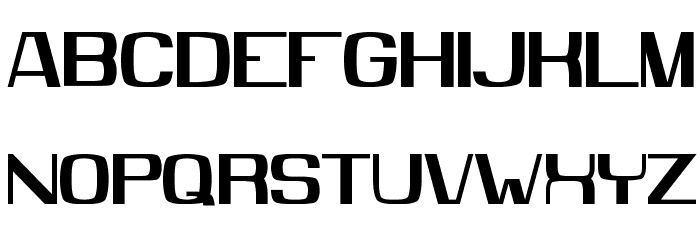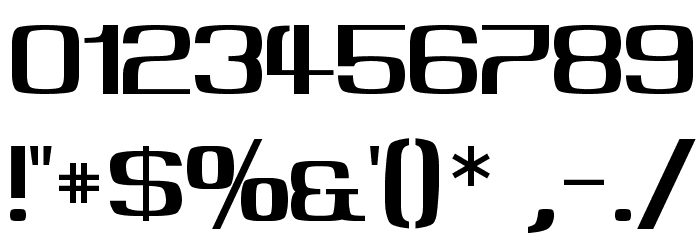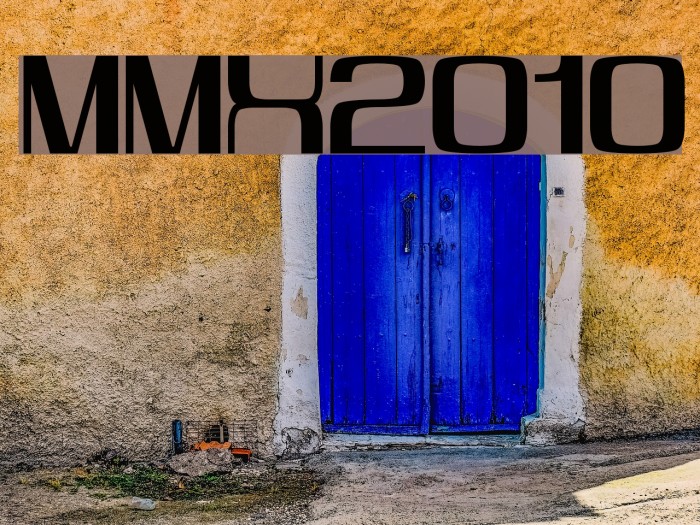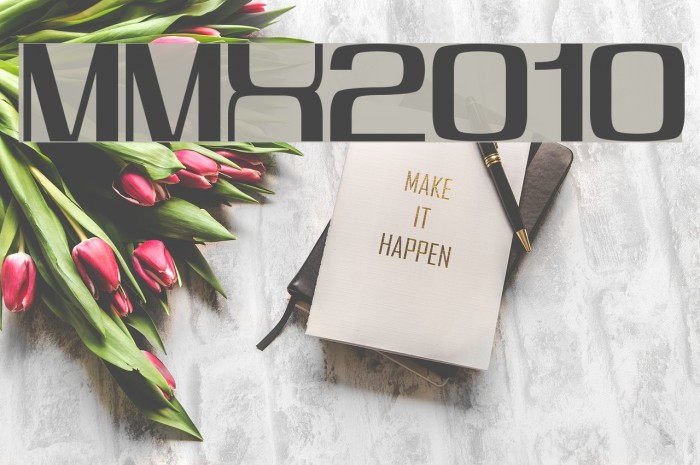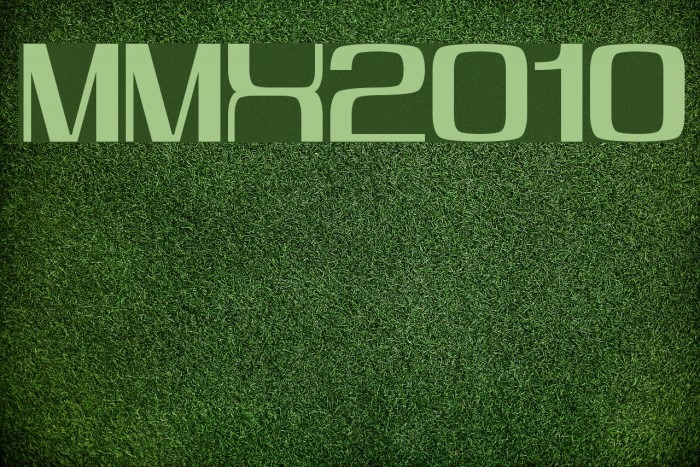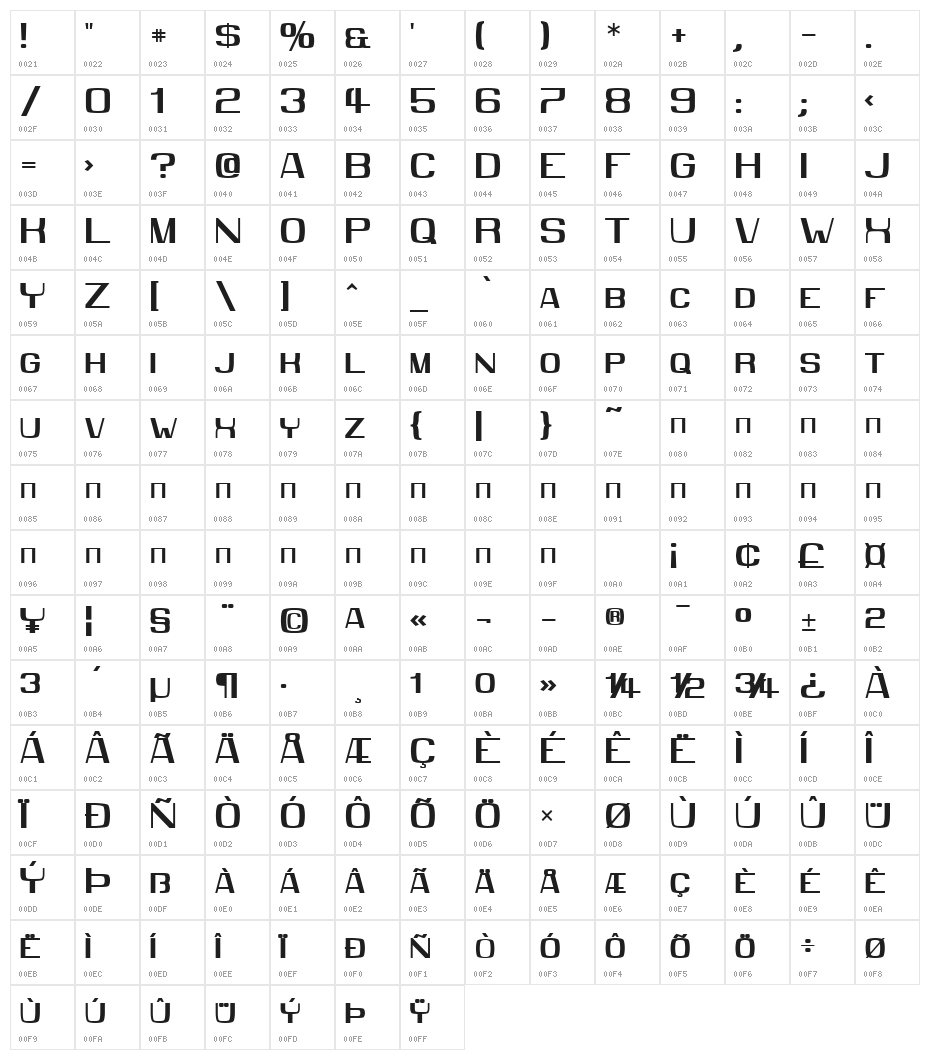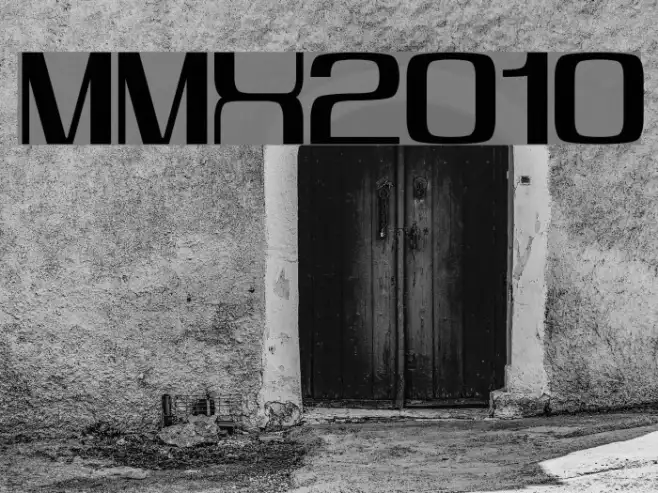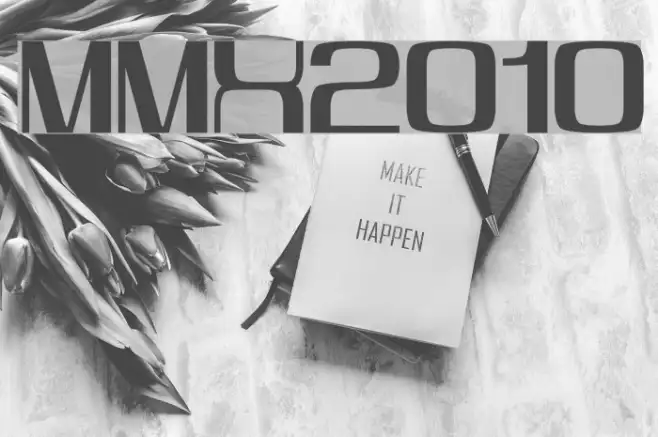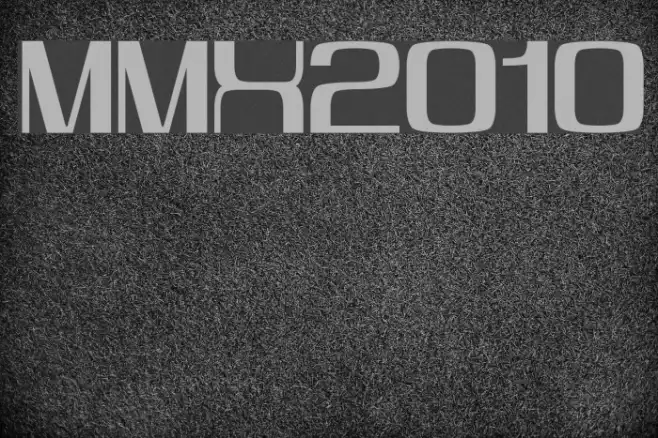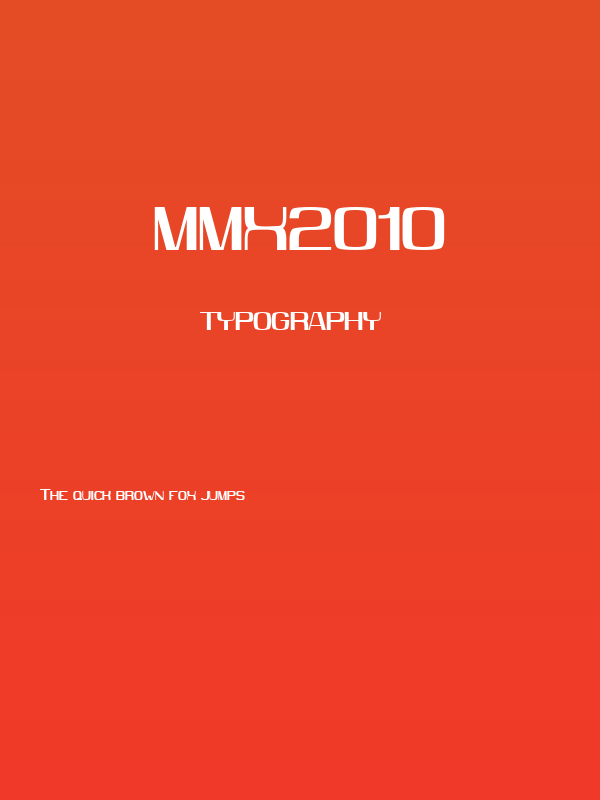
MMX2010 Font
This font features a bold and modern design with a distinct geometric structure. The characters are wide and have a strong presence, making them ideal for attention-grabbing headlines. The uppercase letters are particularly striking, with a consistent height and width that create a uniform appearance. The numbers and special characters maintain this bold style, ensuring readability and visual impact. The font's clean lines and sharp angles give it a contemporary feel, suitable for modern branding and design projects.
A bold, geometric font with a modern and striking design.
- Font: MMX2010
- Proposed Projects: Ideal for branding, headlines, posters, and modern design projects.
- Category: Sans-Serif
- Width: Expanded